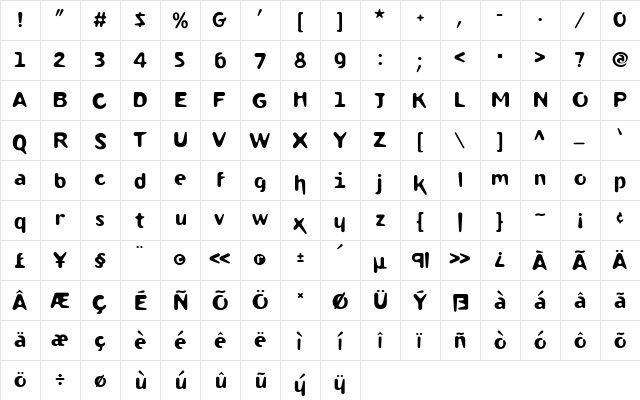
Droplet Medium Font Preview
Droplet Medium
Design Context for Droplet Typeface
Droplet is a composed and adaptable typeface that performs quietly and consistently across a wide range of design contexts.